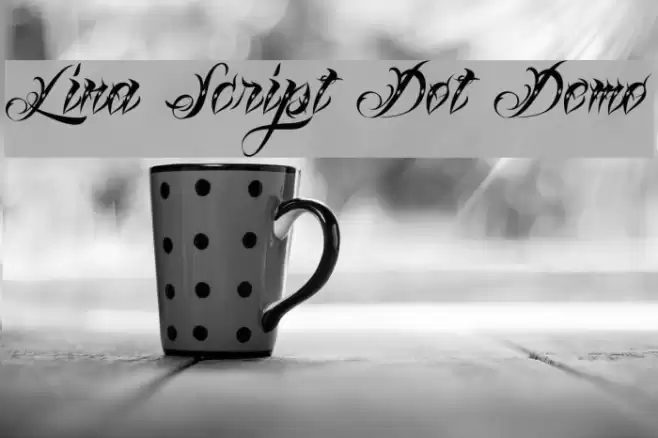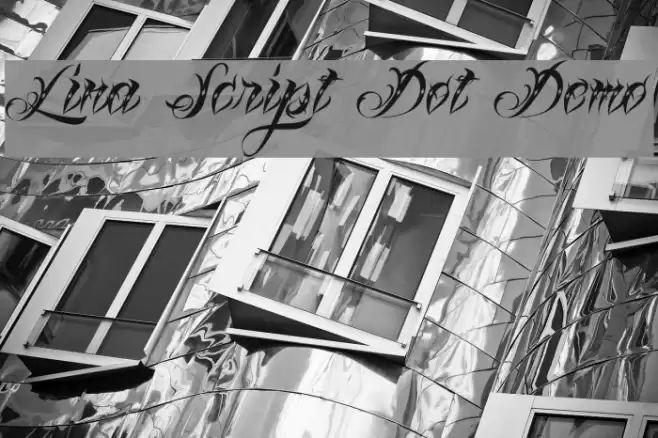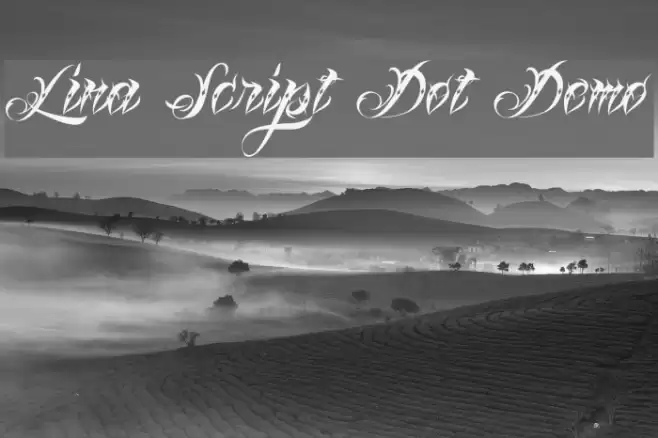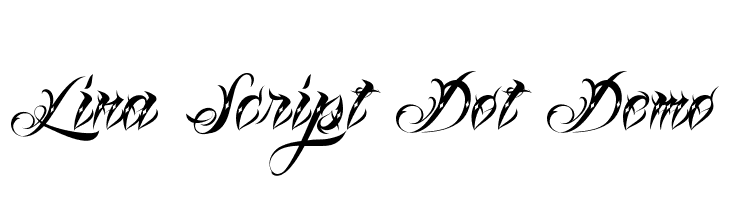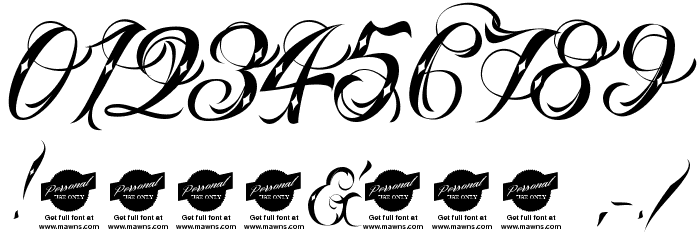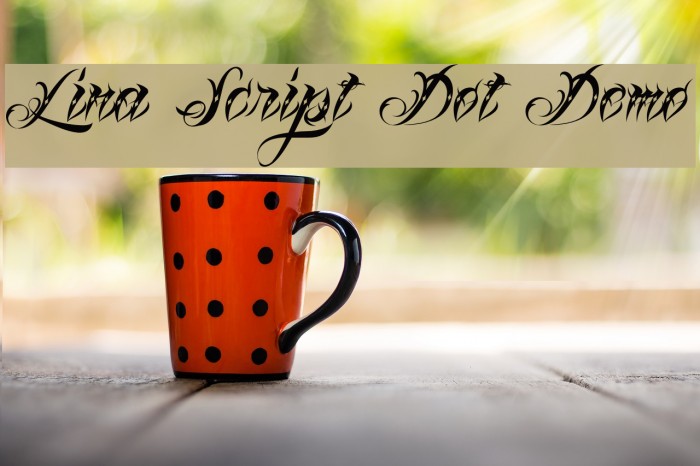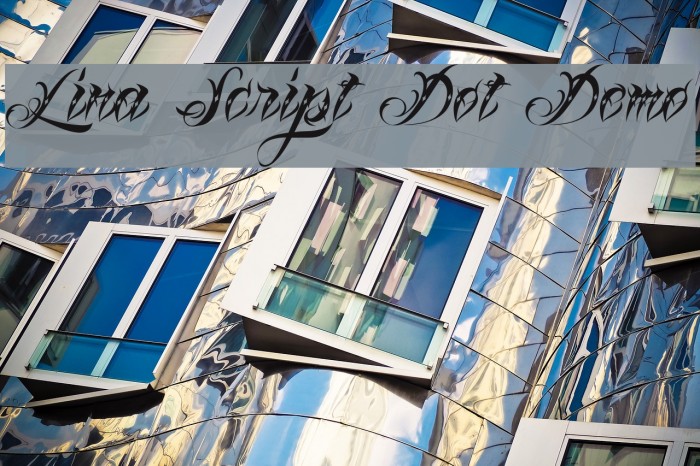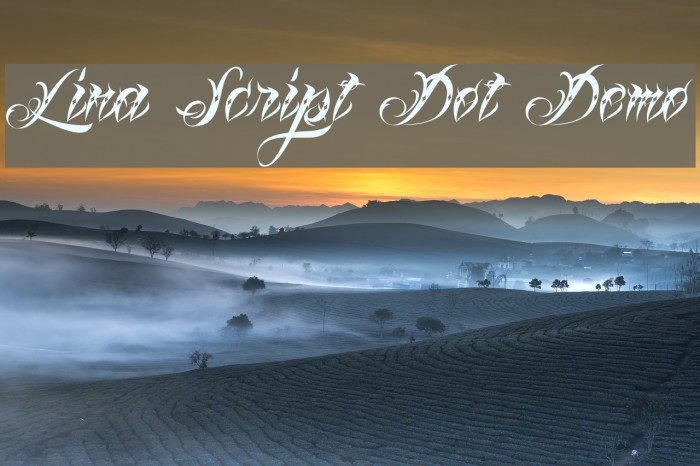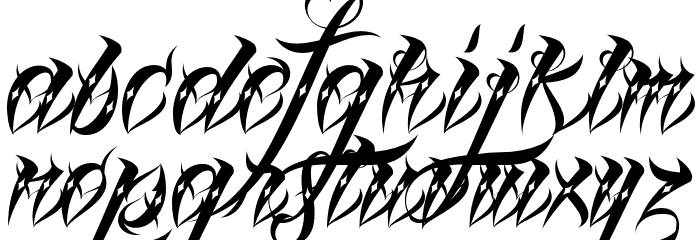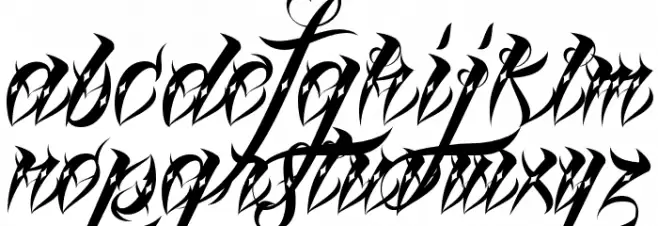
Lina Script Dot Demo Font
Lina Script Dot Demo Description
This font is an elegant and intricate script style, characterized by its flowing, cursive letterforms and decorative swashes. The uppercase letters are particularly ornate, featuring elaborate loops and flourishes that give a sense of sophistication and artistry. The lowercase letters maintain a consistent style, with smooth, connected strokes that enhance readability while retaining a decorative flair. The numerals are equally stylized, with curves and loops that mirror the letterforms. This font is ideal for projects that require a touch of elegance and creativity, such as wedding invitations, formal event programs, or high-end branding materials. The overall design is both classic and artistic, making it suitable for a variety of decorative purposes.
An elegant and intricate script font with flowing, decorative letterforms from Uncategorized fonts.
- Proposed Projects: Wedding invitations, formal event programs, high-end branding materials, artistic projects.